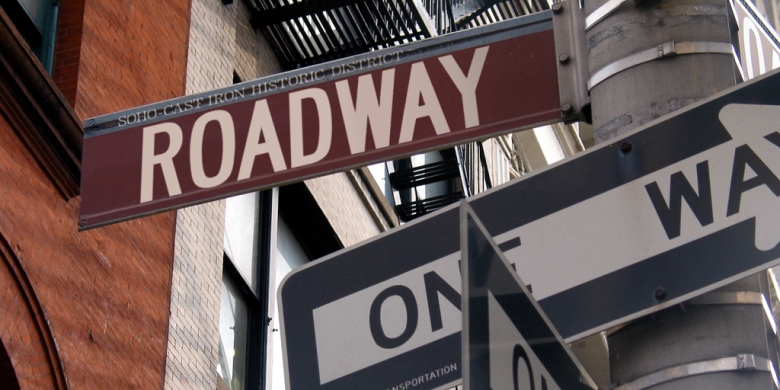
Roadway is based on U.S. highway lettering observed on New York street signs. Two weights of capitals would often be used on the same sign, condensed for the main name, and a half-size regular superscript for ‘road’ or ’street’.
Roadway is a Small Caps font. The upper case consists of condensed capitals, the lower case consists of regular width small caps, sized at 50% and superscript.
Roadway Font